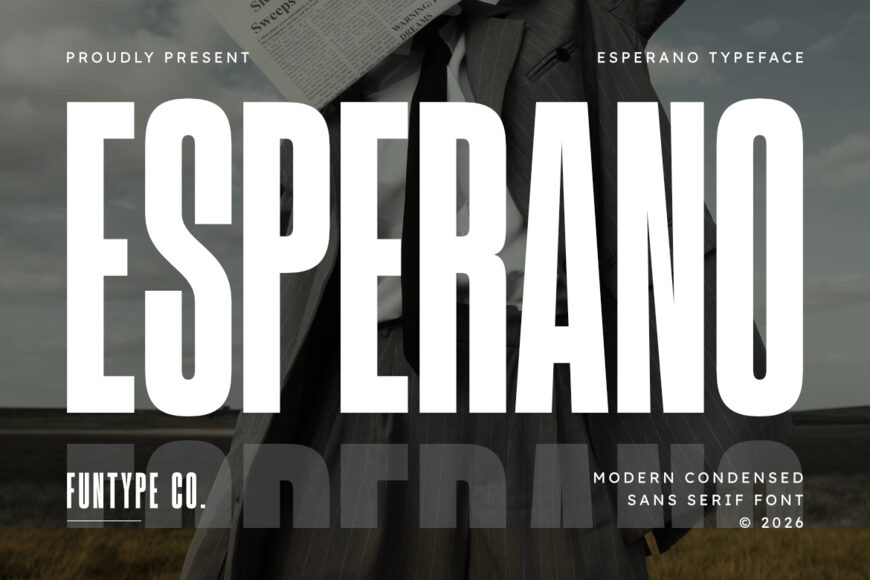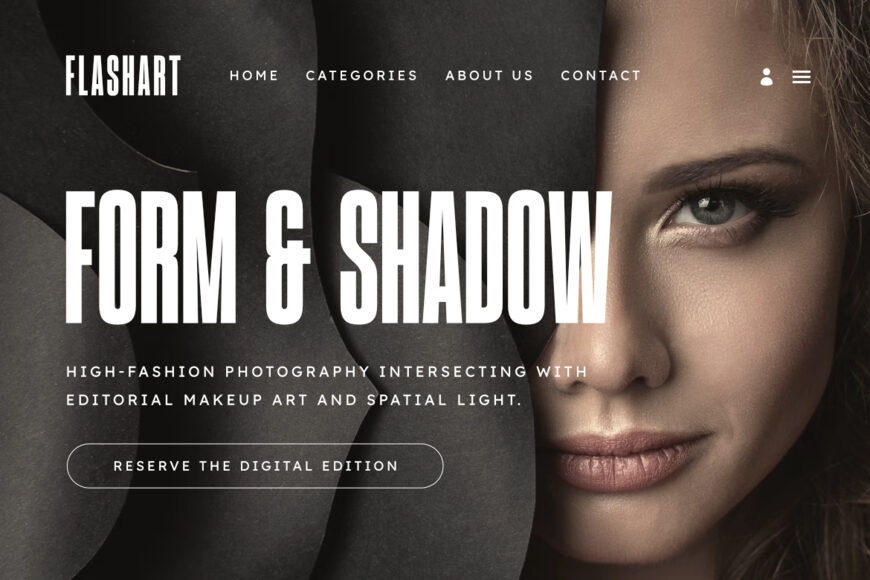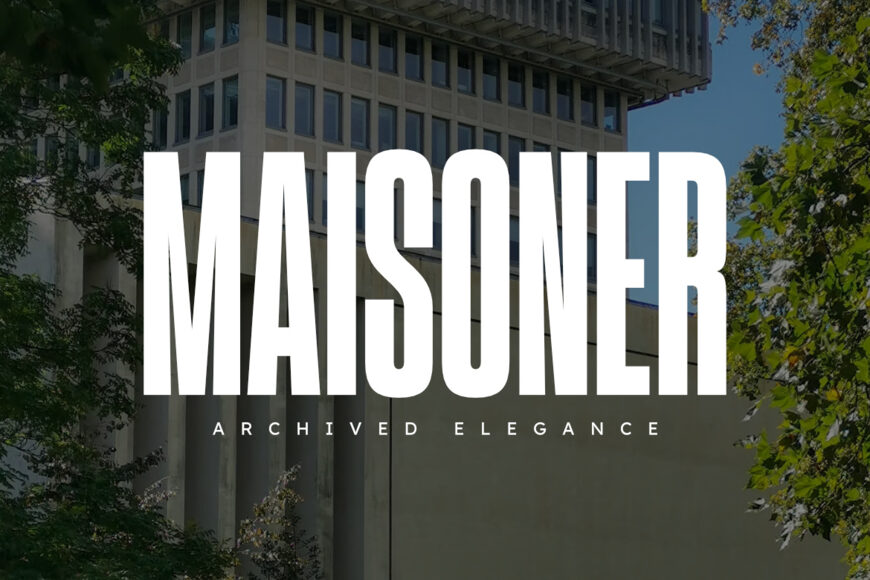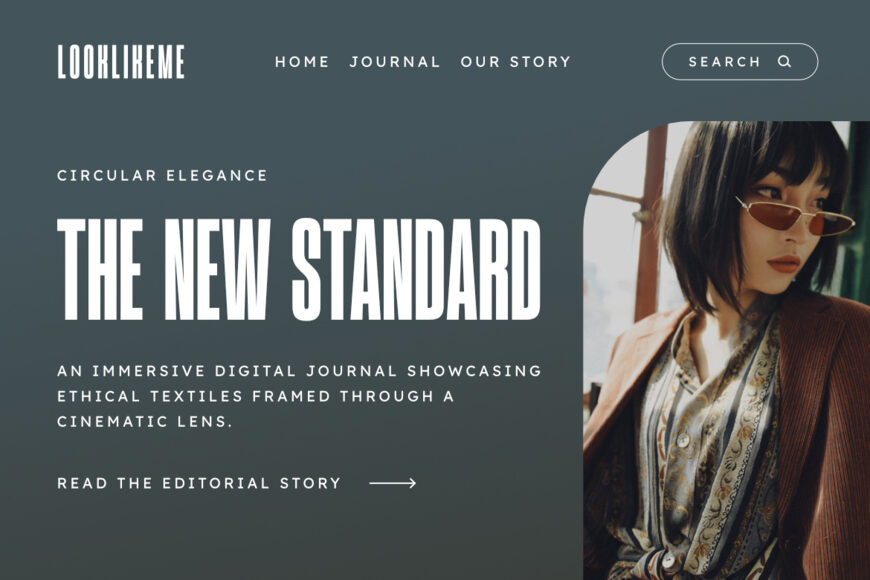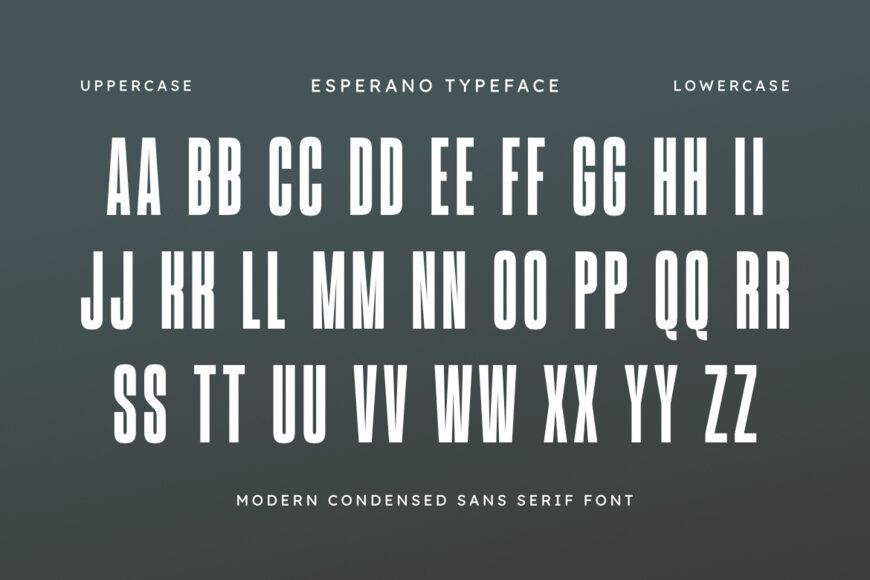
Esperano Font
Esperano is a tall, narrow, and beautifully stylized modern condensed sans serif font tailored for precise, high-impact branding and commercial craft design.
Showcasing a compact geometric block structure, heavy weights, and clean linear silhouettes with aggressive sharp notch accents, this typeface is exceptionally qualified for commanding headlines, high-end urban streetwear clothing lines, luxury activewear branding, custom vinyl decals, boutique apparel graphics, and bold promotional posters.